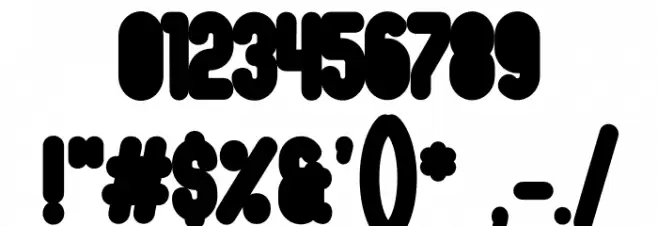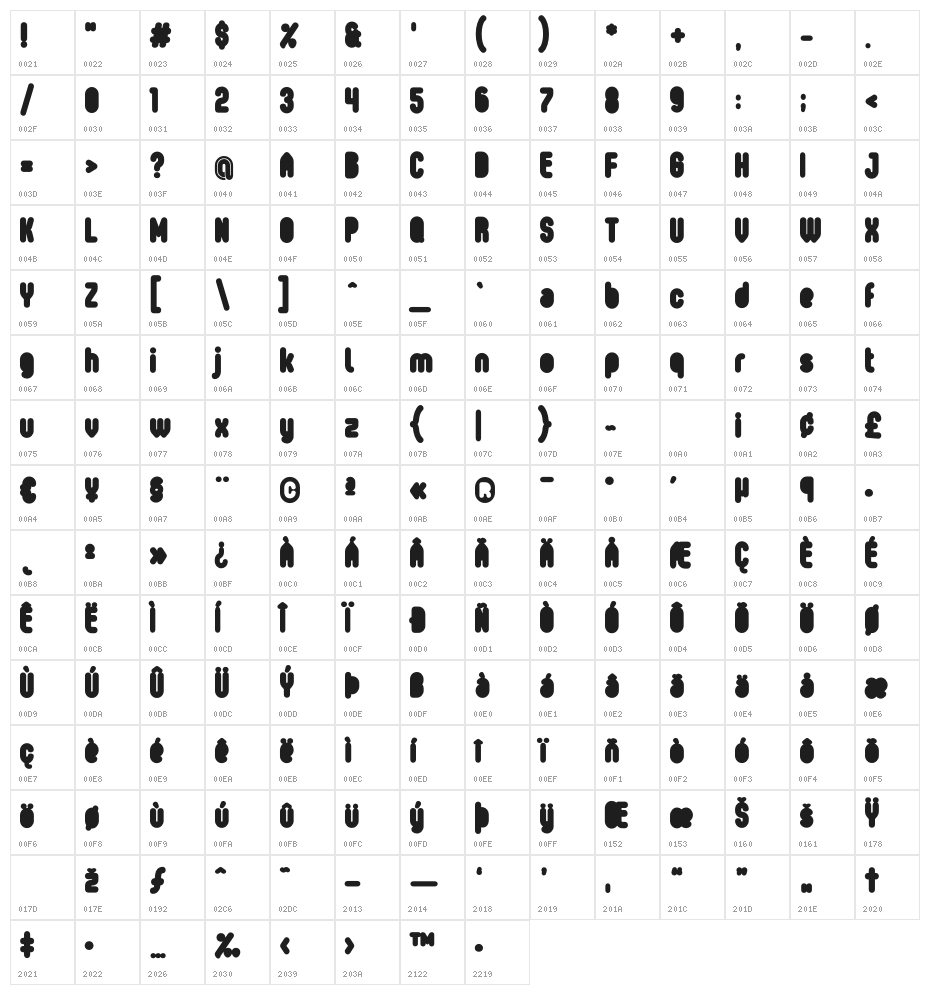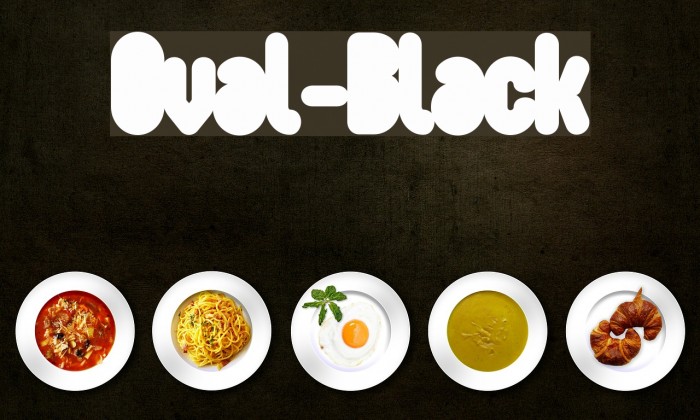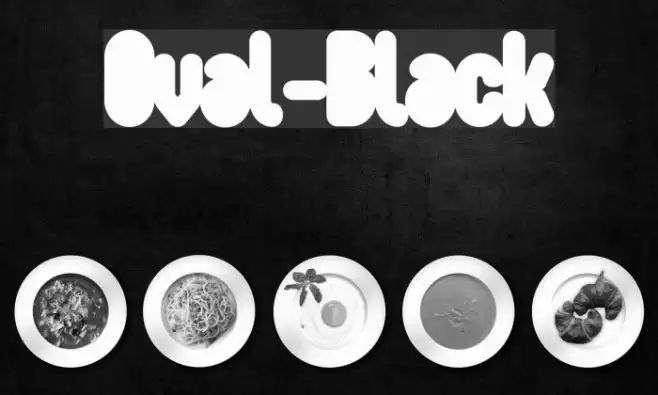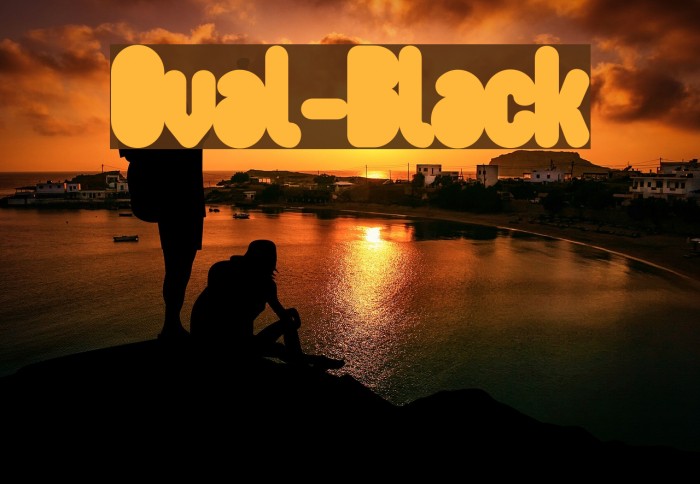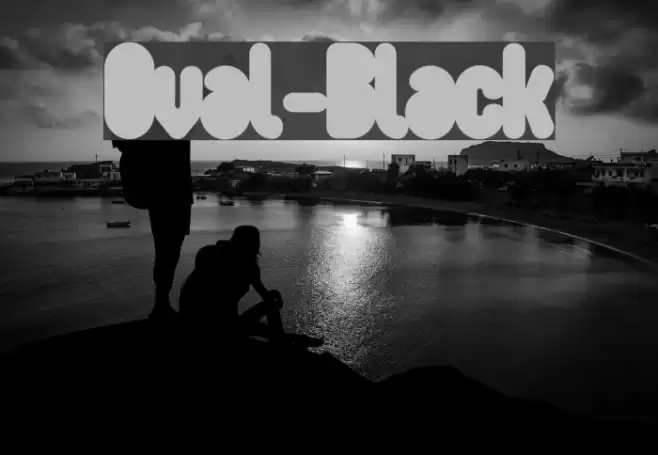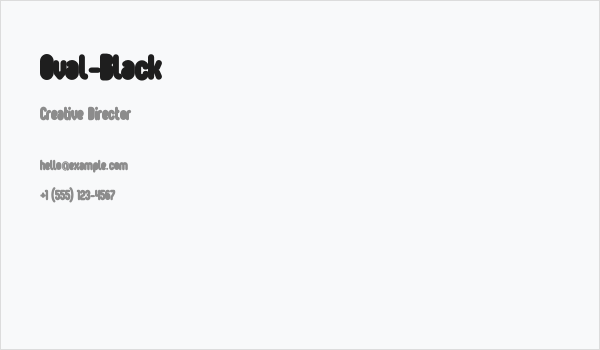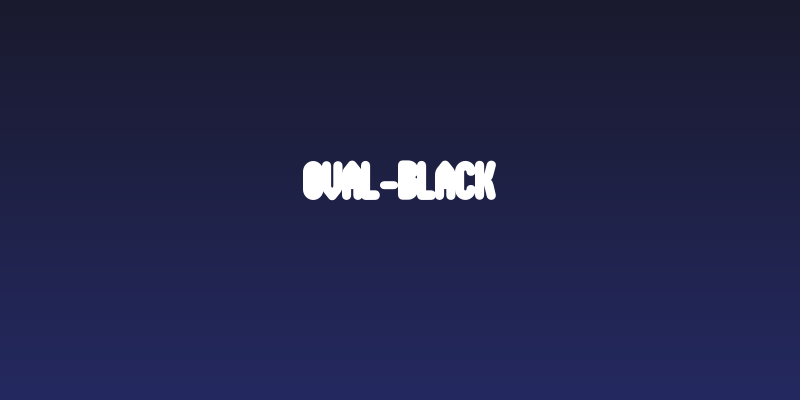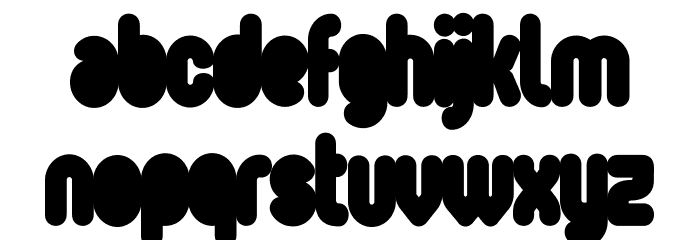
Oval-Black Font
Oval-Black Description
This font features bold, rounded characters with a playful and modern aesthetic. The letters are heavily weighted, giving them a strong presence on the page. Each character is designed with smooth curves and a consistent thickness, creating a cohesive and unified look. The style is reminiscent of retro designs, yet it maintains a contemporary feel. The font's boldness makes it ideal for attention-grabbing headlines and logos. Its rounded edges soften the overall appearance, making it approachable and friendly. The spacing between characters is tight, which enhances the compact and solid nature of the text.